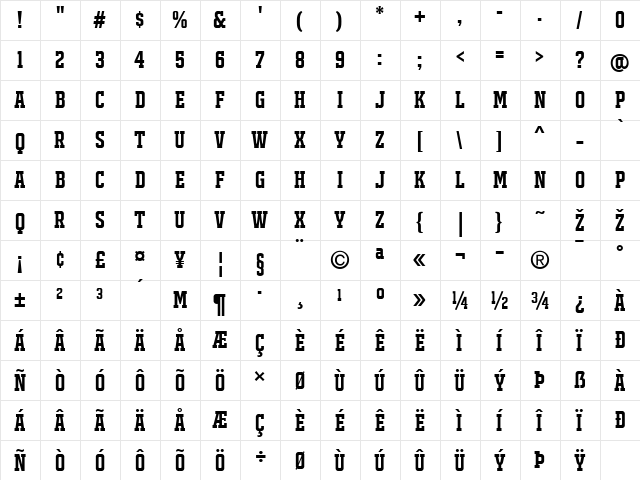
JACKPORT REGULAR NCV Regular
Design Context for JACKPORT REGULAR NCV Typeface
JACKPORT REGULAR NCV offers clean, dependable letterforms without strong stylistic allegiance, making it a practical choice for designers who need flexibility.